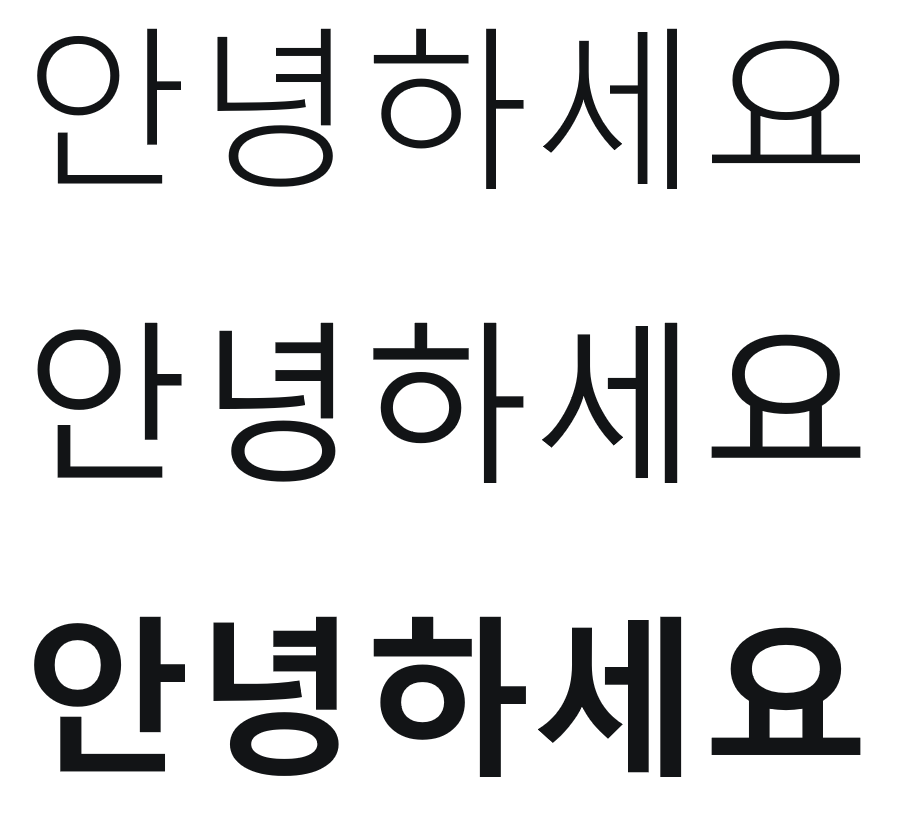
Malgun Gothic is a Korean font developed by taking advantage of ClearType technology, and it provides excellent reading experience particularly onscreen. Its elements are created based on the typeface of Hunminjeongeum, and streamlined with modern form of characters as well as upright and well-regulated strokes. The font is very legible at small sizes with its moderate open counters, and its even inter-character spacing and visual center line maximize the readability.
Designers | Kyoung-bae Lee; Daekwon Kim |
The Semilight weight was added to the Malgun Gothic font family
Malgun Gothic was introduced. Initially it was available in two styles.